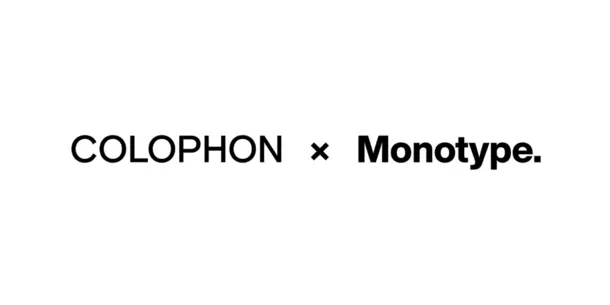
Acclaimed Colophon Foundry Joins Monotype Family
• Award-winning and innovative Colophon Foundry brings its talented team, custom design expertise, type technology and tools, and its library of 85 font families to Monotype.
LONDON, UK, December 19th, 2023 – Monotype, a global leader in type and technology, announced today that the international award-winning Colophon Foundry has joined the Monotype family. Founded in 2009 by Anthony Sheret and Edd Harrington, Colophon is known for having its finger on the cultural pulse of the design world. The London-based foundry is renowned for its bespoke type design for global brands, its library of 85 type families, a talented team of eight world-class creatives, and innovative type technology tools.
Colophon’s impressive reputation within the design industry is reflected in its outstanding portfolio of custom work with notable brands across the globe, including Burger King, Canva, Cadillac, Twickenham, and Central Saint Martins. In 2021, Colophon created the readable and quirky Canva Sans custom type for global graphic design platform Canva. For British art school Central Saint Martins in 2018-2019, Colophon created a dynamic multi-personality typeface that called to the school’s past, present, and future, using a pseudo-random script to create an unpredictable mix of typeface forms.
The Colophon library includes 85 font families, many available in variable format.
In 2010, Colophon released Aperçu, a contemporary font that references classic realist typefaces, which has gained widespread popularity among some of the world’s most recognizable brands, including adoption by New York’s Museum of Modern Art. The Colophon catalogue offers modern classics that feel both historically rooted and contemporary, including Basis Grotesque, Fann Grotesque, Fortescue, Value Sans, and Value Serif.
“The Monotype Studio has long admired the work of Colophon, some of which we have included in our annual Trends report. The team has a well-deserved reputation in the design world, and I am very excited to be welcoming this talented team to Monotype, broadening both our capabilities and our reach,” says Tom Rickner, Senior Director of the Monotype Studio.
Colophon’s team includes founder and managing director Anthony Sheret, founder and creative director Edd Harrington, and a team of six creatives. Passionate about typography and design, this talented team of eight will join Monotype, each bringing their own unique skills and approach.
Founders Anthony Sheret and Edd Harrington are creative powerhouses in the font community, driving the conversation with their collaborative and independent initiatives in publishing, editing, curation, exhibitions, and teaching on font and design.
“We are excited about the prospect of contributing to the next chapter of Colophon Foundry within Monotype. This isn’t a goodbye; it’s a continuation of our journey together, with fresh opportunities for collaboration and innovation,” says Colophon Co-Founder Anthony Sheret.
“We have always been fascinated by the idea that our work and contribution can stretch far beyond our reach, and we see that amplifying within the organisation of Monotype. The resources offered within Monotype will allow Colophon to truly thrive and continue producing world-class typographic solutions alongside being at the forefront of technological developments.” says Colophon Co-Founder Edd Harrington.
Monotype’s CEO Ninan Chacko says, “As Monotype strives to keep type at the heart of creative culture, joining forces with Colophon seemed like a natural fit. We have long admired Colophon’s immense creativity and ability to leverage premium type to drive storytelling across brands, creatives, and type users. We are thrilled to be welcoming them to the Monotype team and to continue Colophon’s long history and track record of building impactful custom type for global brands.”
Named as an homage to printmaking, Colophon comes from the historical title for a printer’s statement at the beginning or end of a book on the authorship, printing, and typefaces found within its pages. As Colophon turns the page to its next chapter with Monotype, the teams will work together to raise the global profile of type.